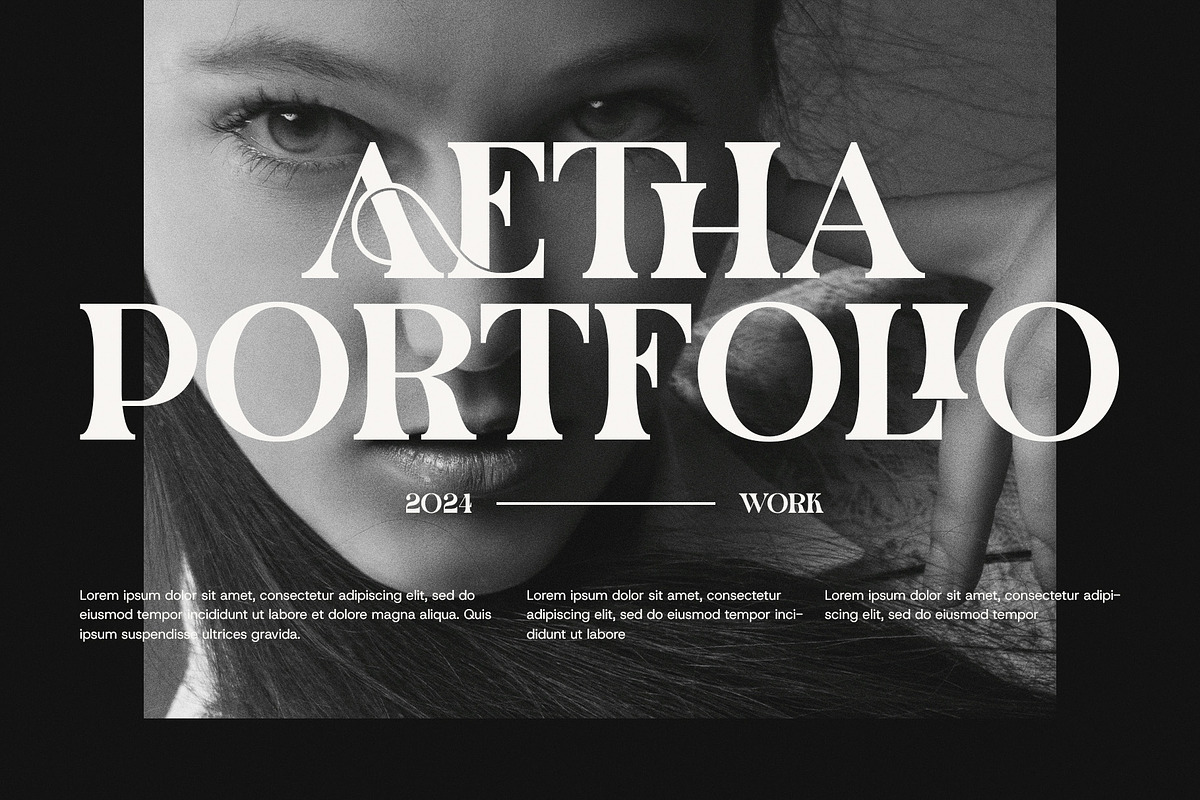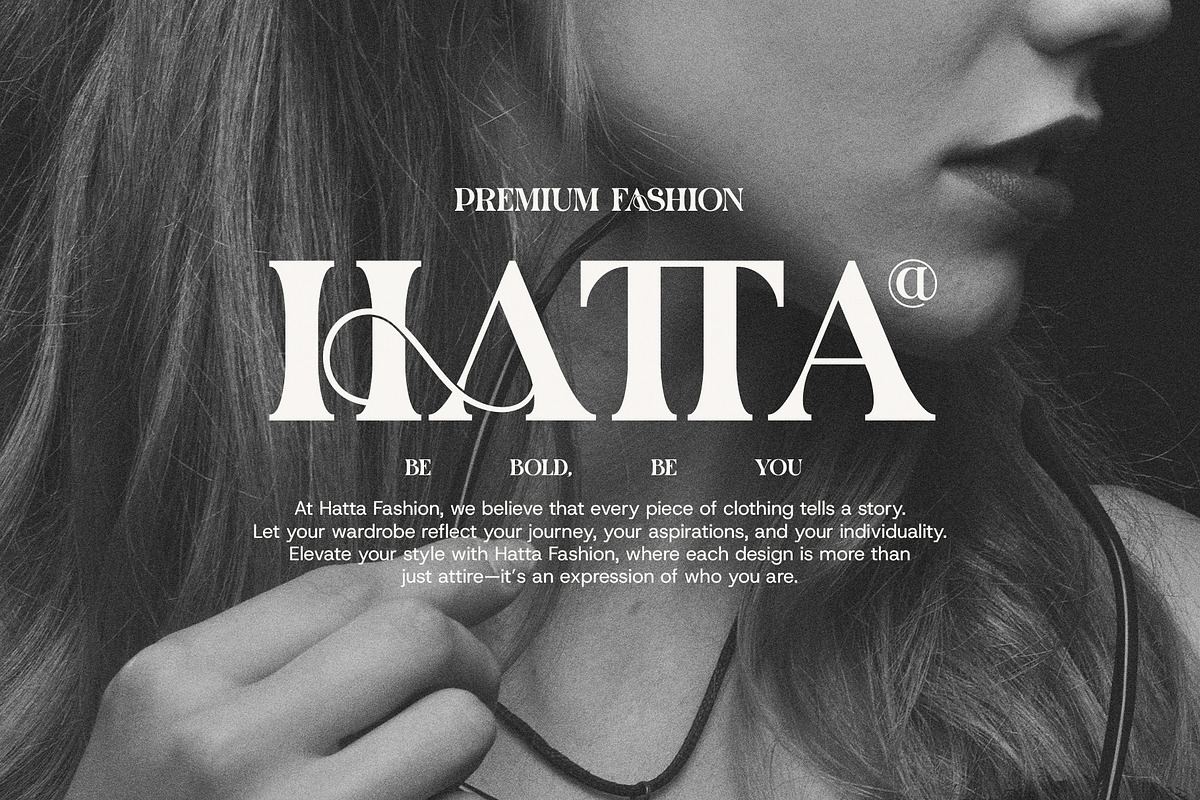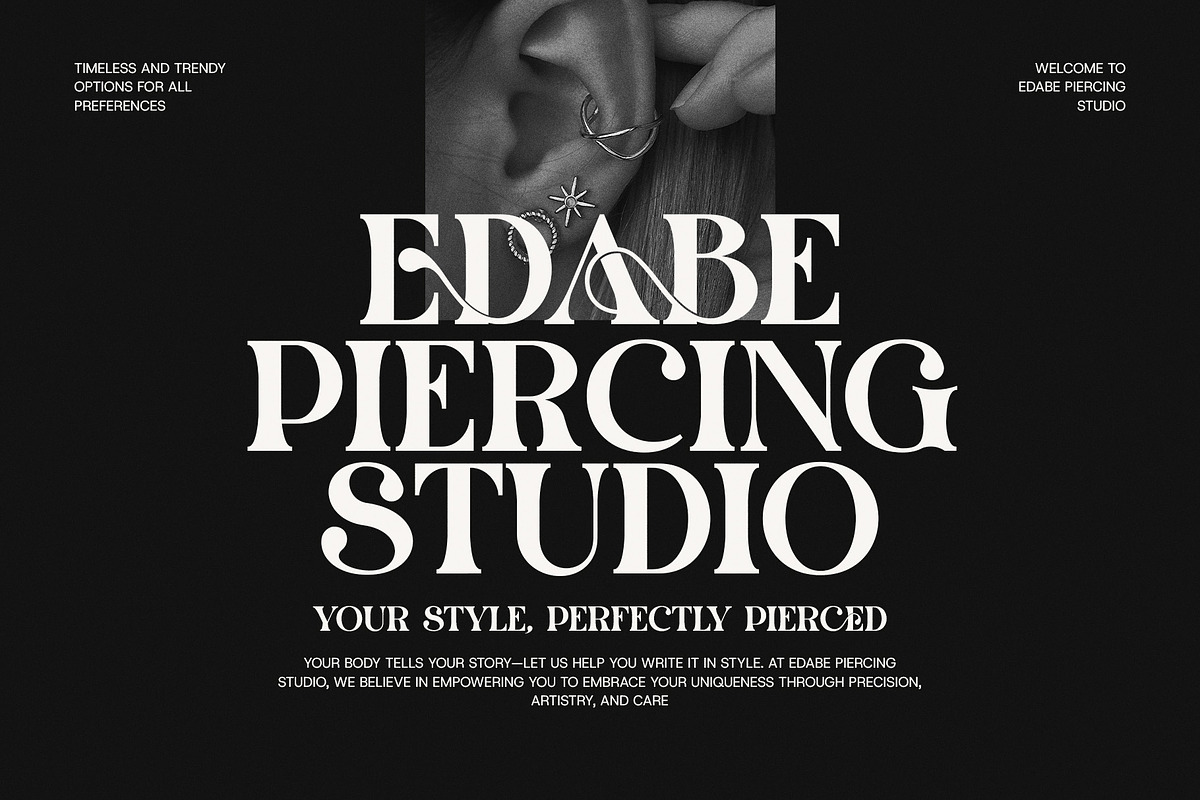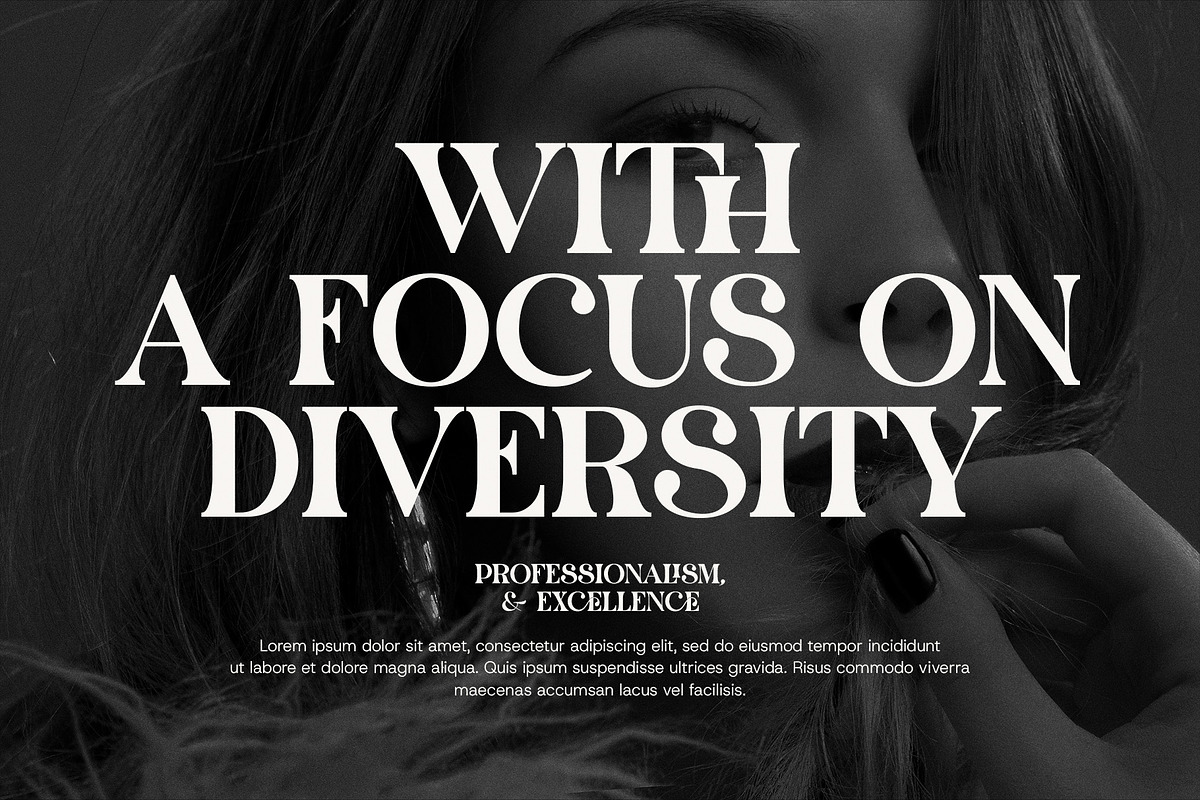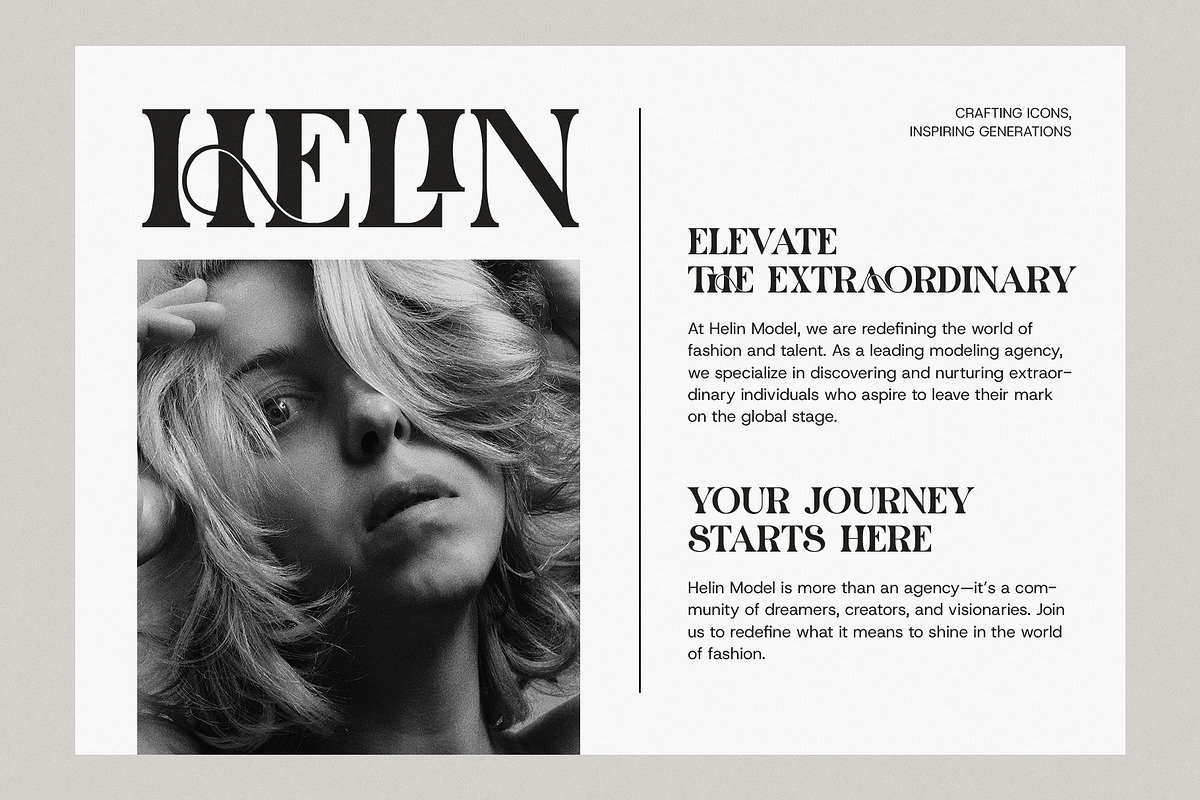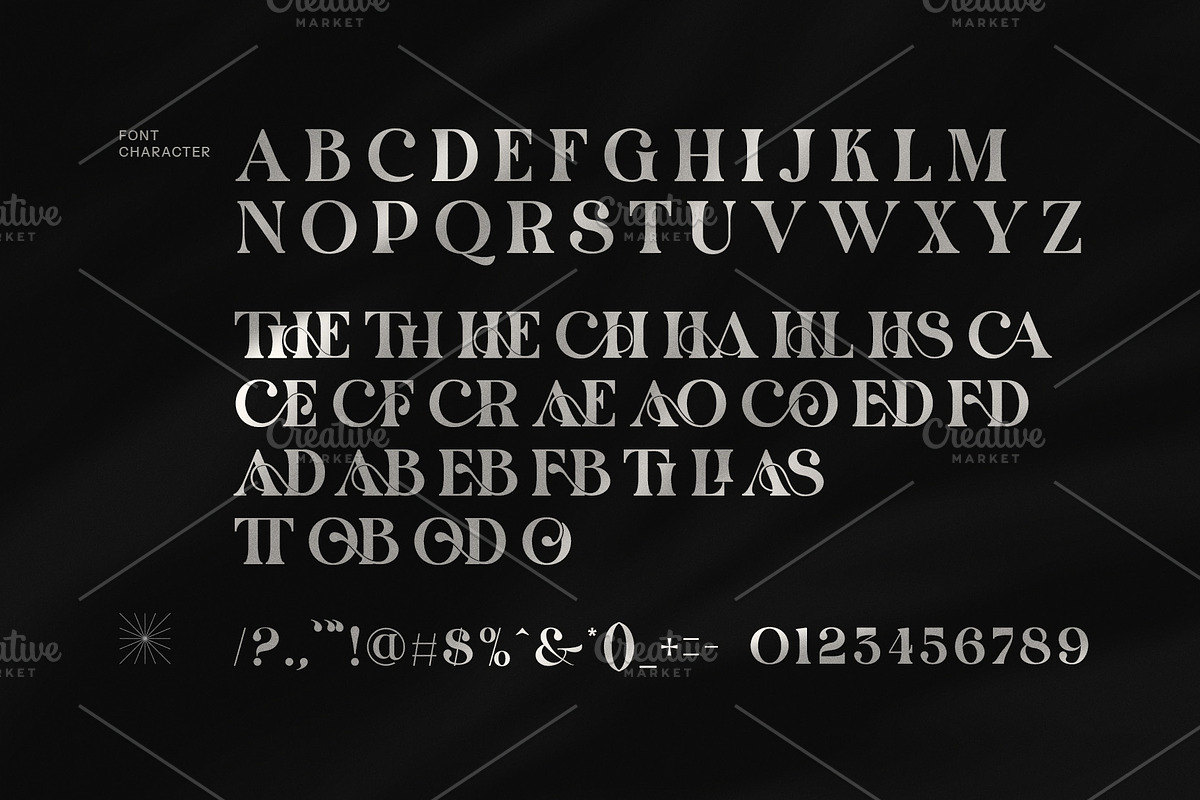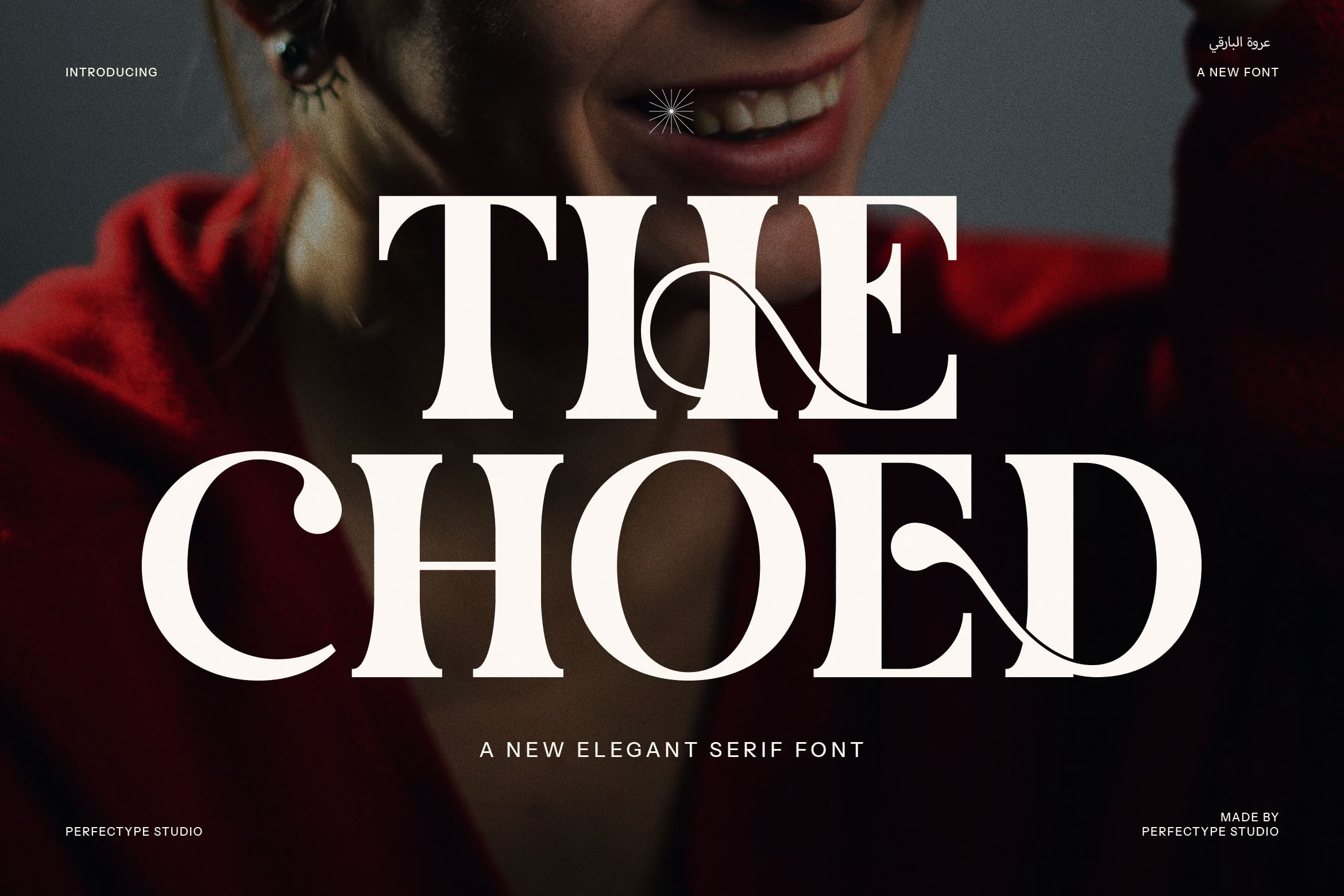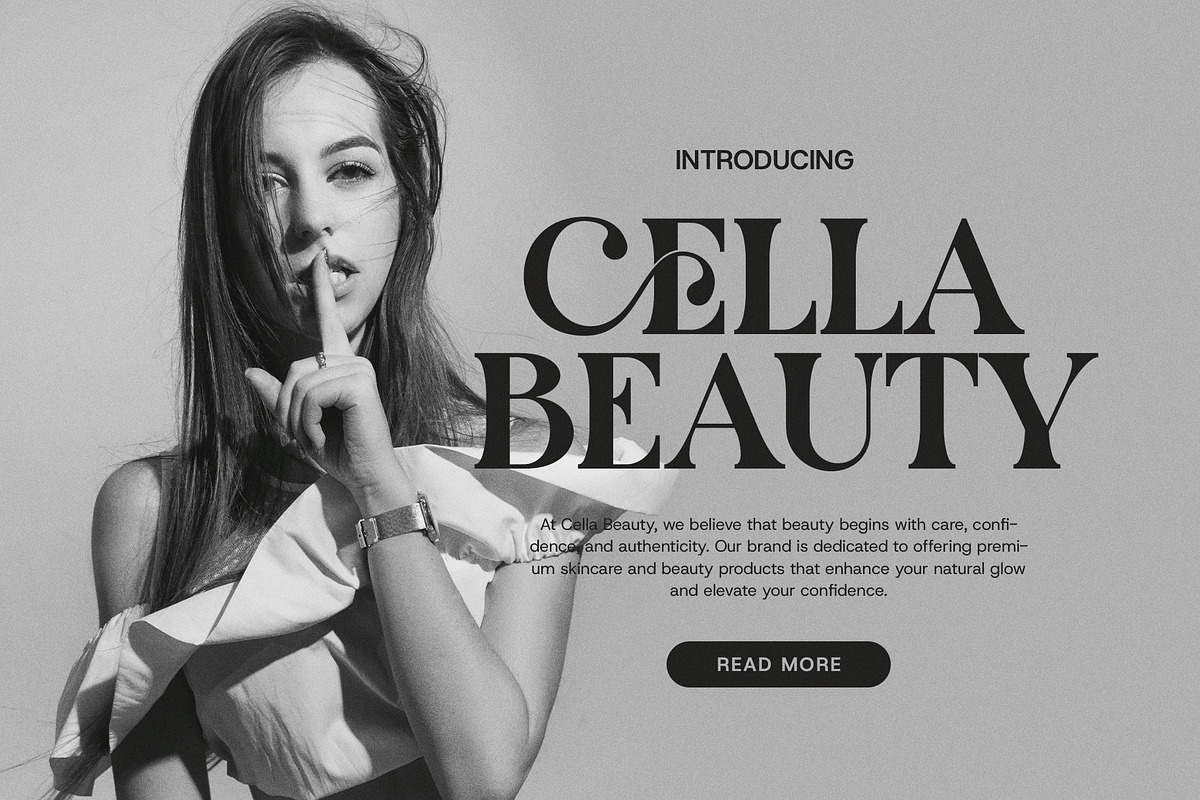
The Choed Display Serif Font
The Choed Display Ligature Serif Font is a striking and sophisticated typeface that effortlessly blends modern design with timeless elegance. Featuring beautifully crafted serifs and distinctive ligatures, The Choed stands out for its unique, artistic character that enhances any project with a touch of luxury. Its refined shapes and smooth connections between letters give it an exquisite, high-end feel, making it perfect for projects that require both style and professionalism.
Ideal for logos, branding, and upscale product design, The Choed adds a sense of exclusivity to any visual identity. Whether you’re designing for fashion, food, or lifestyle brands, this font’s modern and elegant aesthetic will help you create a lasting impression. The Choed shines in both digital and print formats, making it versatile for websites, magazine layouts, advertisements, and product packaging.
The distinctive ligatures in The Choed not only add a sense of fluidity but also introduce a unique design element that can’t be found in traditional serif fonts. This makes it an excellent choice for designers seeking to set their work apart with something truly exceptional. Its refined, yet contemporary appearance ensures it performs beautifully in both bold headlines and refined body text.
Elevate your designs with The Choed Display Ligature Serif Font and infuse your branding with elegance, creativity, and modern sophistication. Whether for high-end boutiques or luxury food products, this font will elevate your brand’s visual identity and help it stand out in a competitive market.